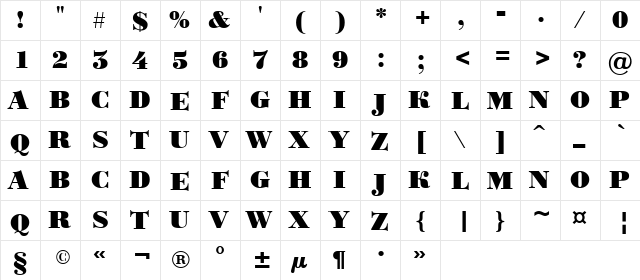
a_BodoniOrtoTitul Black Font Preview
a_BodoniOrtoTitul Black
a_BodoniOrtoTitul Black Font Details
Design Context for a_BodoniOrtoTitul Typeface
a_BodoniOrtoTitul takes a measured approach to typography — its balanced proportions and neutral character make it a reliable workhorse for both digital and print work.